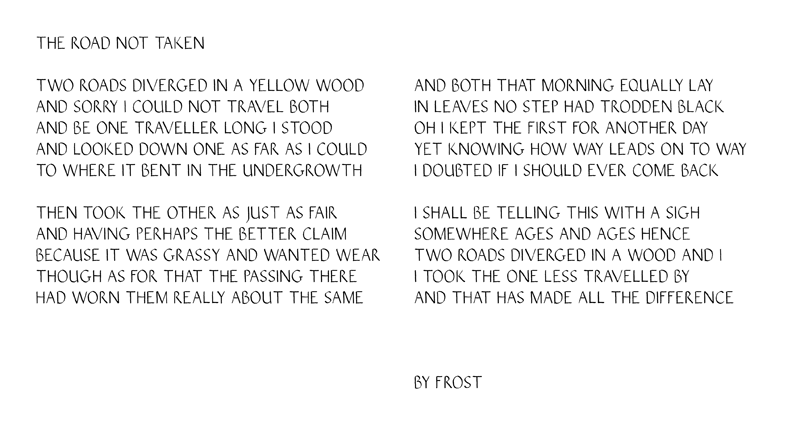
This is an uppercase font written with a nib. It's absolutely free for commercial use. For more letters and exclusive usage contact mediengestaltung@u-s-e.org |